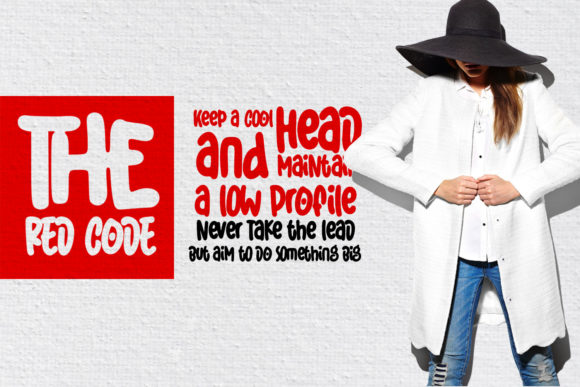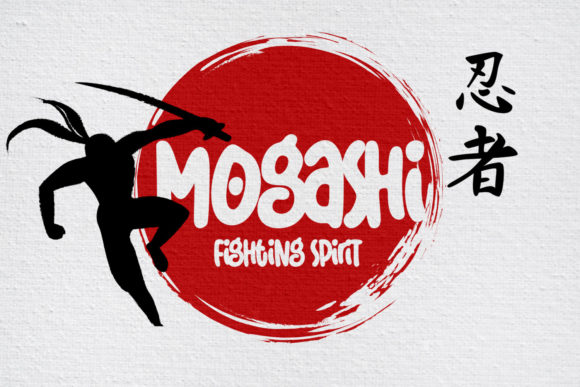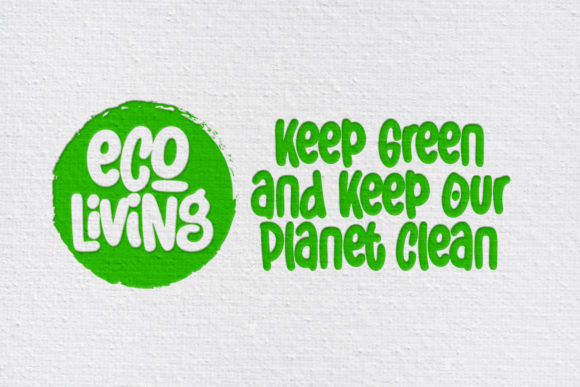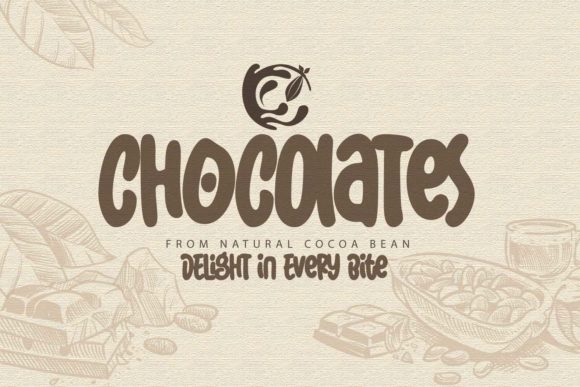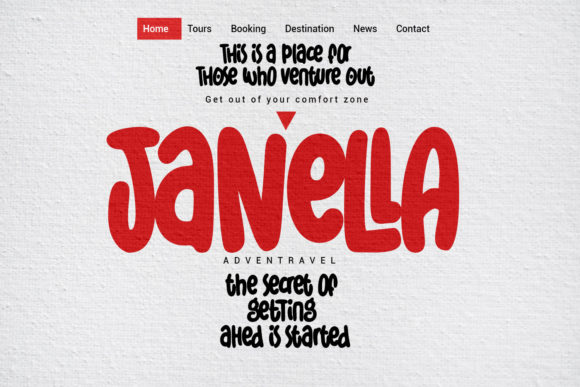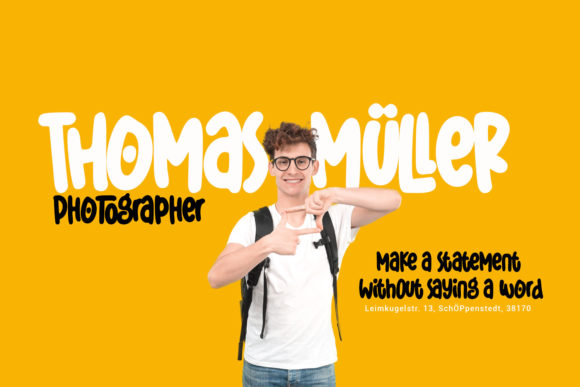
Unleash Your Creativity with Blugie Font
Have you ever stared at a blank canvas, a piece of paper, or a digital screen, feeling the pressure to create something amazing? We’ve all been there. The blank space stares back at us, waiting for our imagination to kick in. And then, it happens – a spark of inspiration, a dash of creativity, and suddenly, our project comes alive.
Enter the Blugie Font, a playful and quirky handwritten font that adds a dash of personality to any crafting project. With its fun and carefree vibe, Blugie Font is the perfect companion for designers looking to infuse their work with a touch of whimsy. Whether you’re creating digital art, designing a logo, or crafting a handmade card, the Blugie Font is sure to bring a smile to your face and a unique touch to your project.
Blugie Font Key Features
- Size: Blugie Font is available in a single weight, making it suitable for a wide range of applications.
- Unique Characteristics: Blugie Font features a unique, hand-drawn style with subtle imperfections, giving it a personal touch.
- Resolution: Designed for high-resolution displays, ensuring crisp and clear text rendering.
- Language Support: Blugie Font supports multiple languages, including Latin-based scripts and some Cyrillic characters.
- Font Size Range: Suitable for body text, headings, and titles, with optimal legibility in font sizes ranging from 12 to 48 points.
Blugie Font Review
At first glance, the Blugie Font seems like a fun, playful addition to any design project. ✨ The rounded edges and smooth curves give it a friendly, approachable feel that’s perfect for kid-friendly brands or creative startups. ✨ The font also comes in a variety of weights, from light to bold, which adds to its versatility.
One of the things that stands out about the Blugie Font is its uniqueness. It’s not a typical sans-serif or serif font, and that’s what makes it so appealing. ✨ It’s also highly legible, even at small sizes, which is a must-have for any font.
- ⚠️ Limited language support: The Blugie Font only supports Latin-based languages, which may be a limitation for designers working on projects that require multilingual support.
- ⚠️ Not ideal for body text: While the Blugie Font is great for headings and titles, it’s not the best choice for body text. The font can feel a bit too playful and whimsical for large blocks of text.
Overall, the Blugie Font is a solid choice for designers looking for a fun, unique font for their next project. While it may not be perfect for every situation, it’s definitely worth considering for the right type of project. With its versatility and high legibility, it’s a great addition to any designer’s toolkit.
Tips for Getting the Most Out of Blugie Font
To get the most out of Blugie Font, try the following:
- Experiment with different font sizes and styles to achieve the desired look.
- Pair Blugie Font with other creative fonts to add visual interest.
- Use Blugie Font in bold or italic styles to add emphasis.
Blugie Font is ideal for:
- Designing creative and playful graphics.
- Creating eye-catching headings and titles.
- Adding a unique touch to marketing materials.
Alternatives to Blugie Font
Great Vibes Font is a modern, elegant script font. It’s perfect for creating a friendly and approachable atmosphere in branding, packaging, and advertising materials. Great Vibes Font has a more refined and sophisticated look compared to Blugie Font, making it suitable for high-end and luxury brands.
Alex Brush Font is a beautiful, handwritten script font. It’s ideal for creating a personal and emotional connection with the audience in invitations, posters, and social media graphics. Alex Brush Font has a softer and more delicate look compared to Blugie Font, making it suitable for feminine and creative brands.
Dancing Script Font is a lively and energetic script font. It’s perfect for creating a fun and playful atmosphere in branding, packaging, and advertising materials. Dancing Script Font has a more dynamic and expressive look compared to Blugie Font, making it suitable for youth-oriented and entertainment brands.